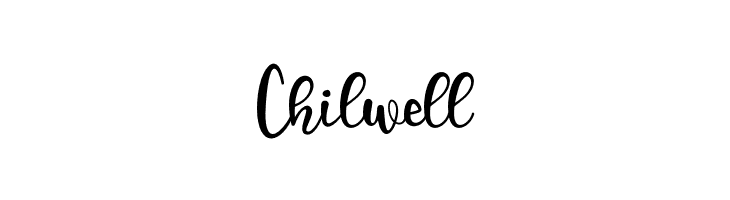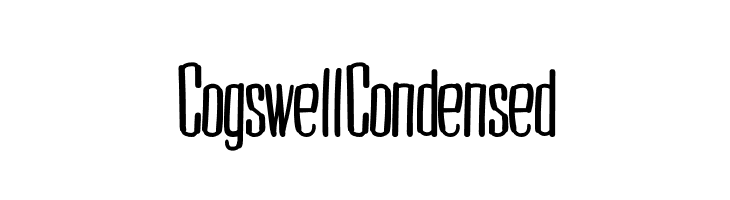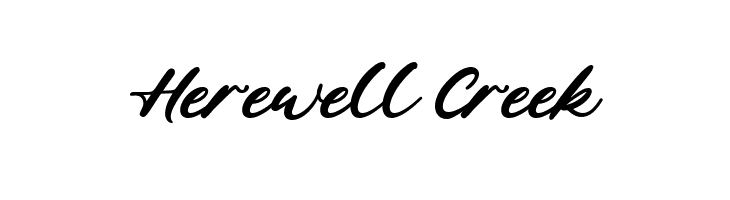
A playful, handwritten font with smooth, flowing lines and a casual style.
A futuristic, geometric monospaced font with sharp angles and consistent width.
A bold, distressed font with a vintage, rugged appearance.
A dynamic script font with brush-like strokes and artistic flair.
A graceful script font with fluid, connected strokes and a sophisticated appearance.
A bold, flowing script font with a modern and decorative style.
A dynamic, brush-style handwritten font with fluid strokes and artistic flair.
A lively, handwritten font with fluid strokes and playful curves.
A bold, brush-style font with dynamic, hand-painted strokes.
A classic serif font with high contrast and elegant styling.
A bold, playful handwritten font with rounded, dynamic letterforms.
A bold, distressed font with sharp, angular edges and a gothic-modern fusion style.
A fluid, cursive font with an elegant handwritten style.
A flowing, elegant cursive font with interconnected characters.
A flowing, cursive font with elegant, interconnected letters.
An elegant script font with flowing, high-contrast cursive letterforms.
A playful and whimsical font with decorative elements and clean lines.
An elegant script font with flowing, cursive letters and ornate flourishes.
A bold and expressive script font with flowing letterforms.
A playful, bold, and whimsical handwritten font with dynamic strokes.
A whimsical script font with flowing, interconnected letters and moderate stroke contrast.
A playful, whimsical script font with a handwritten style.
A playful, handwritten font with a whimsical and casual style.
An elegant script font with flowing cursive lines and intricate swashes.
A playful, handwritten-style font with an oblique slant and consistent stroke thickness.
A playful, casual handwritten font with rounded edges and a friendly appearance.
A bold, italicized cursive font with thick, flowing strokes.
A bold, playful cursive font with rounded strokes and a lively, dynamic style.
An elegant, cursive font with flowing, interconnected letters and ornate uppercase characters.
A bold, italicized font with a modern, dynamic style and medium contrast.
A tall, narrow font with a modern, geometric style.
A sleek, italic font with elongated, narrow characters and a modern aesthetic.